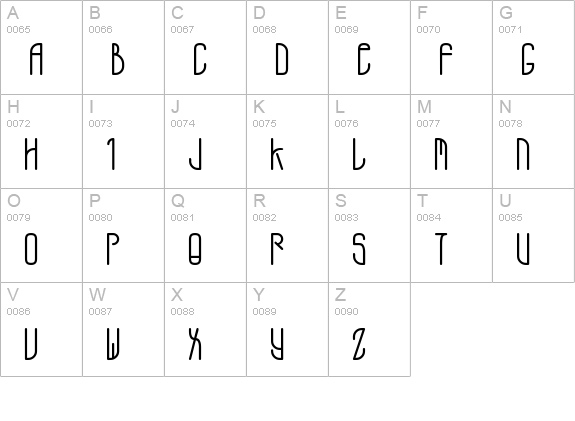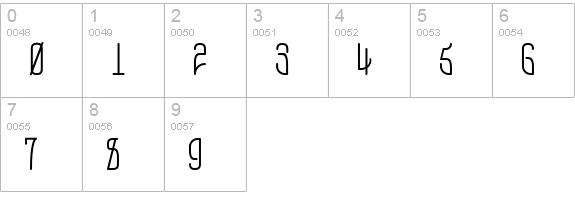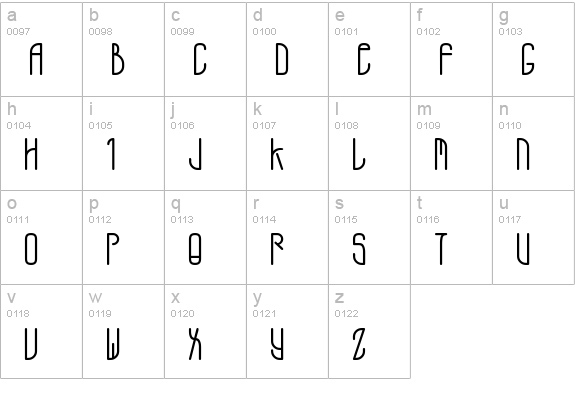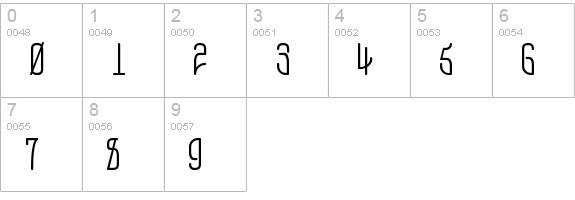
ADMONO-Regular is the standard, neutral variant in the ADMONO typeface family \xE2\x80\x94 well suited to general body text, paragraphs, and standard typographic work.
ADMONO-Regular is a versatile and modern font that exudes a sense of sophistication and elegance. With its sleek lines and balanced proportions, this font is perfect for a wide range of design projects, from branding to editorial layouts. The clean and timeless aesthetic of ADMONO-Regular makes it a go-to choice for designers looking to make a statement with their typography. And the best part? ADMONO-Regular is available for free download at FontsMarket.com. This means you can easily access this high-quality font without any cost, making it a valuable addition to your font library. Don't miss out on the opportunity to enhance your designs with the beauty and versatility of ADMONO-Regular. Download it today and elevate your creative projects to the next level.